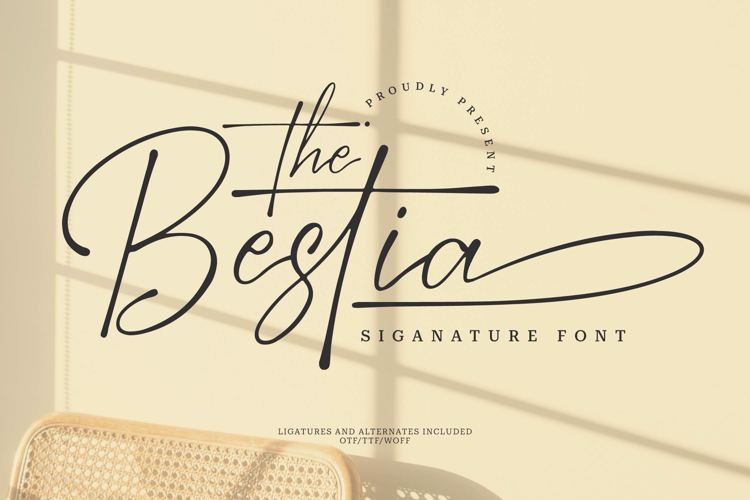
Bestia Font
Bestia | Signature Font is suitable for any projects such as: logos, branding projects, homeware designs, product packaging, mugs, quotes, posters, shopping bags, t-shirts, book covers, name card, invitation cards, greeting cards, label, photography, watermark, special events, and all your other lovely projects that need a Signature script taste.